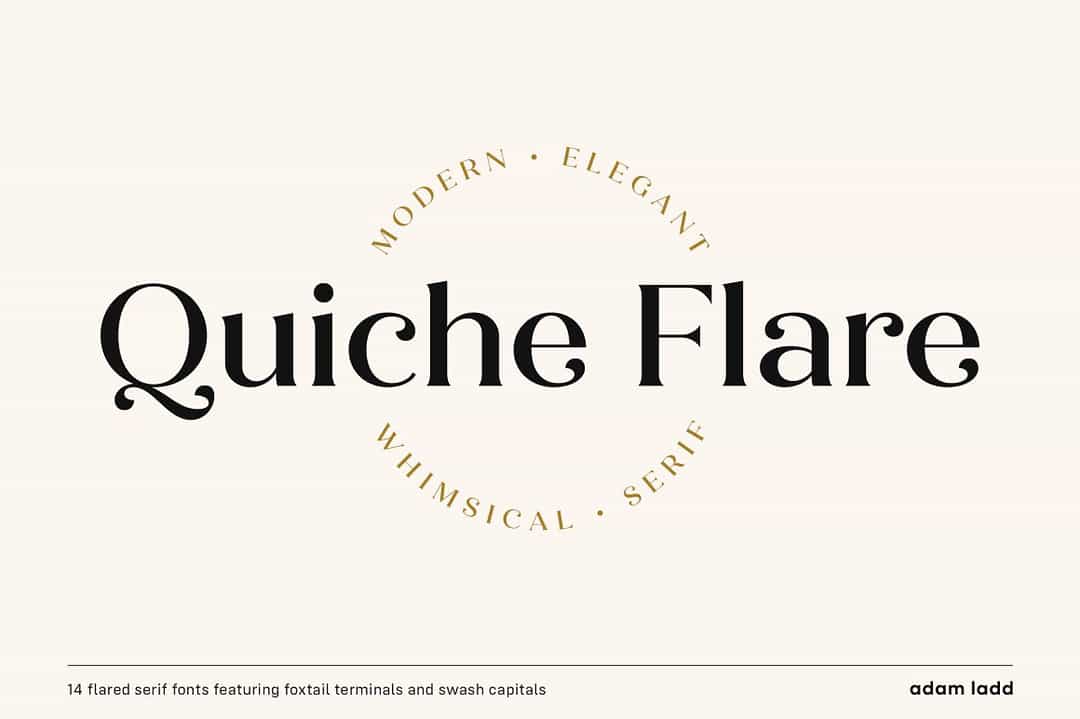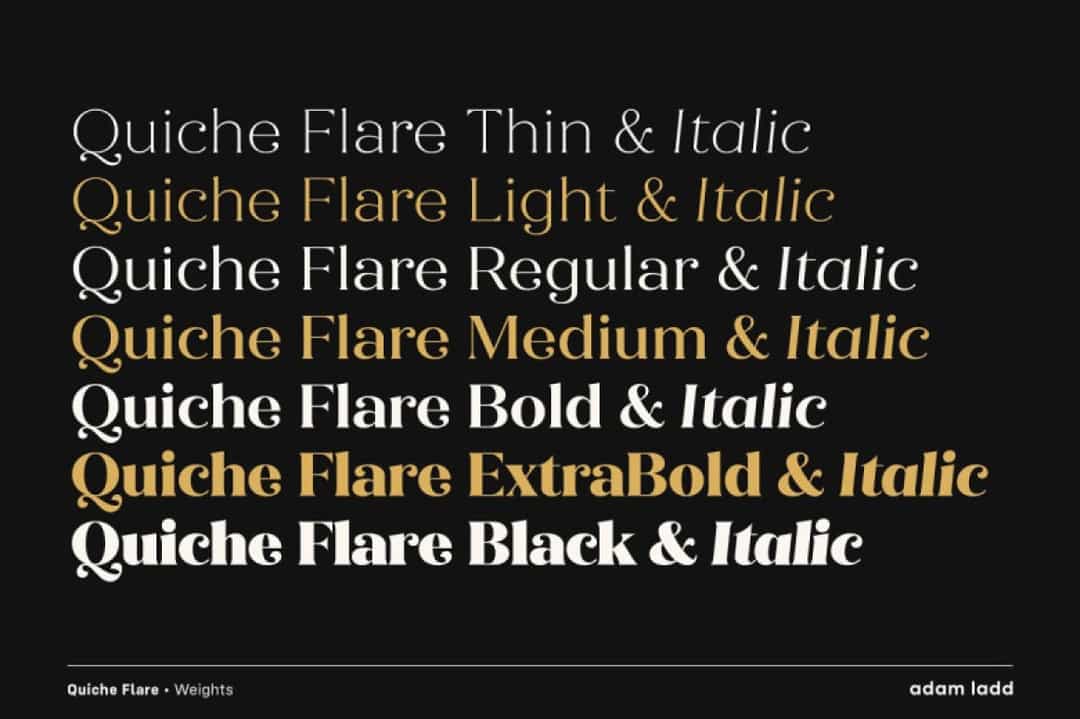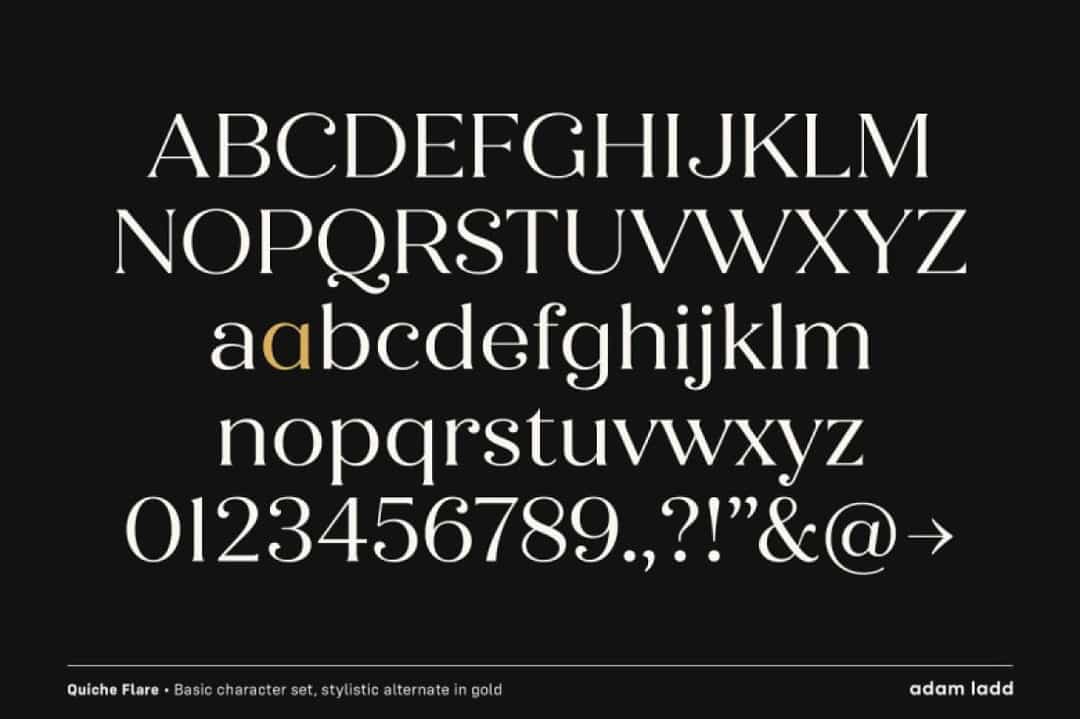
Quiche Flare Font Family 14 is an extremely high contrast typeface featuring flared serifs, foxtail ball terminals with swash capitals, geometric proportions and flared serifs with flared serifs for extra flair. Thin to black weight ranges are available, along with italics making these ideal for printing websites branding advertising packaging magazines labels invitations fashion stationery etc.